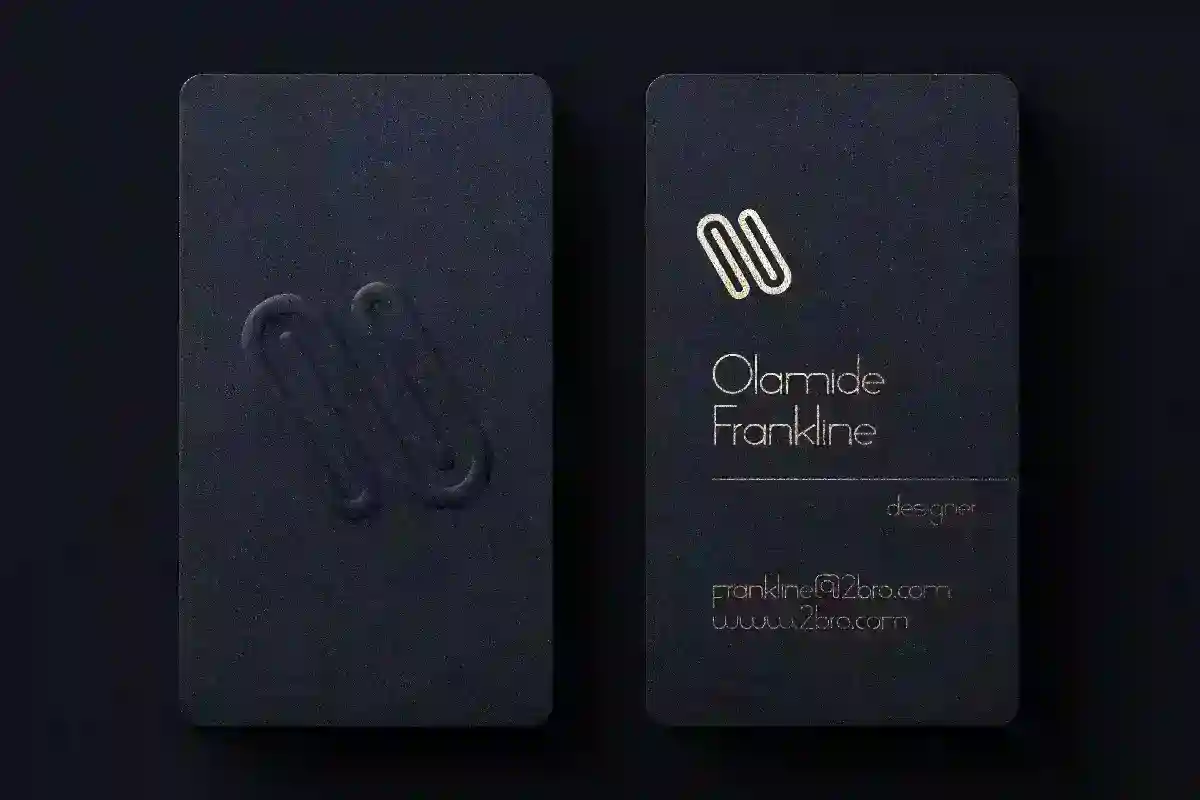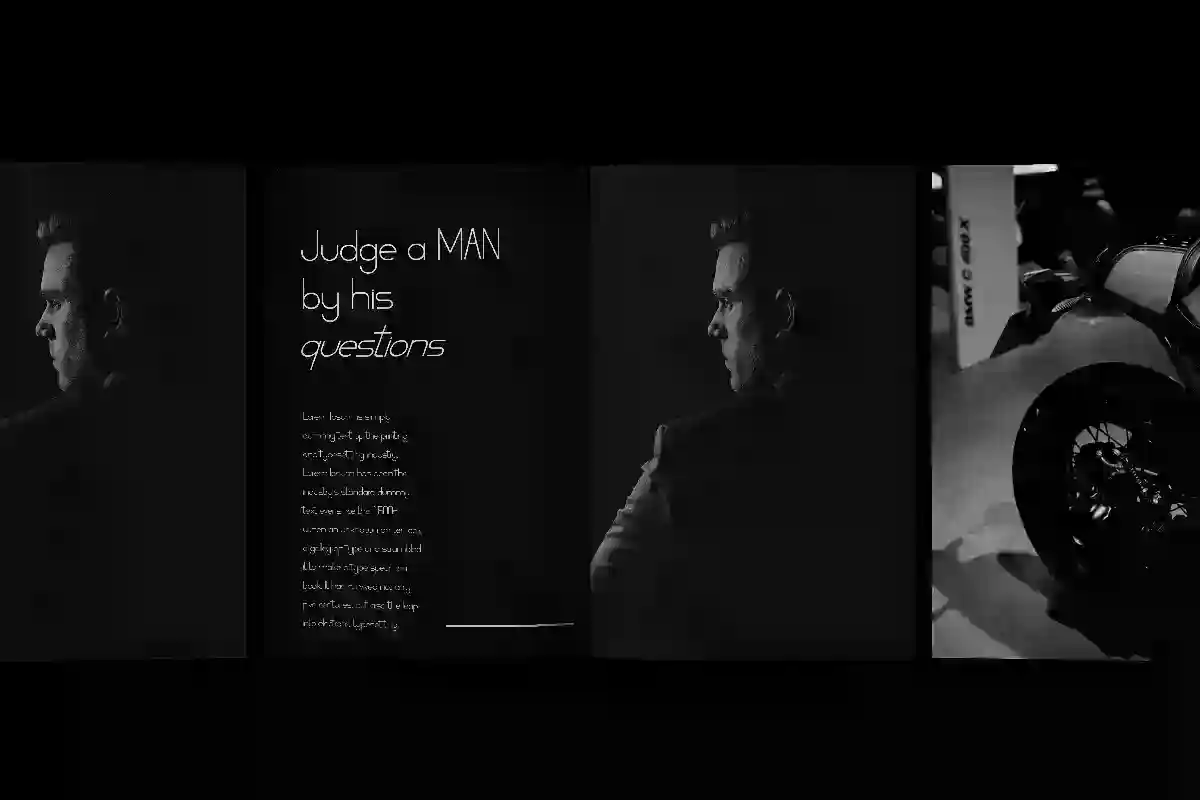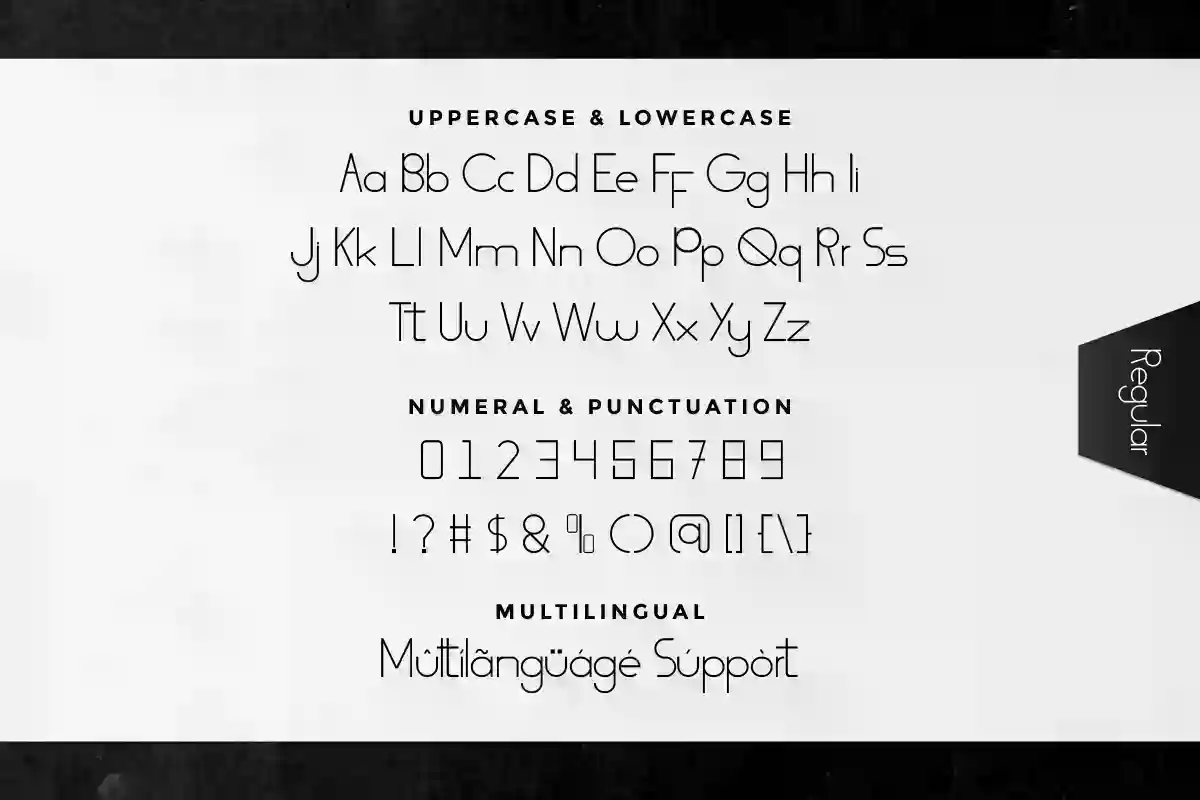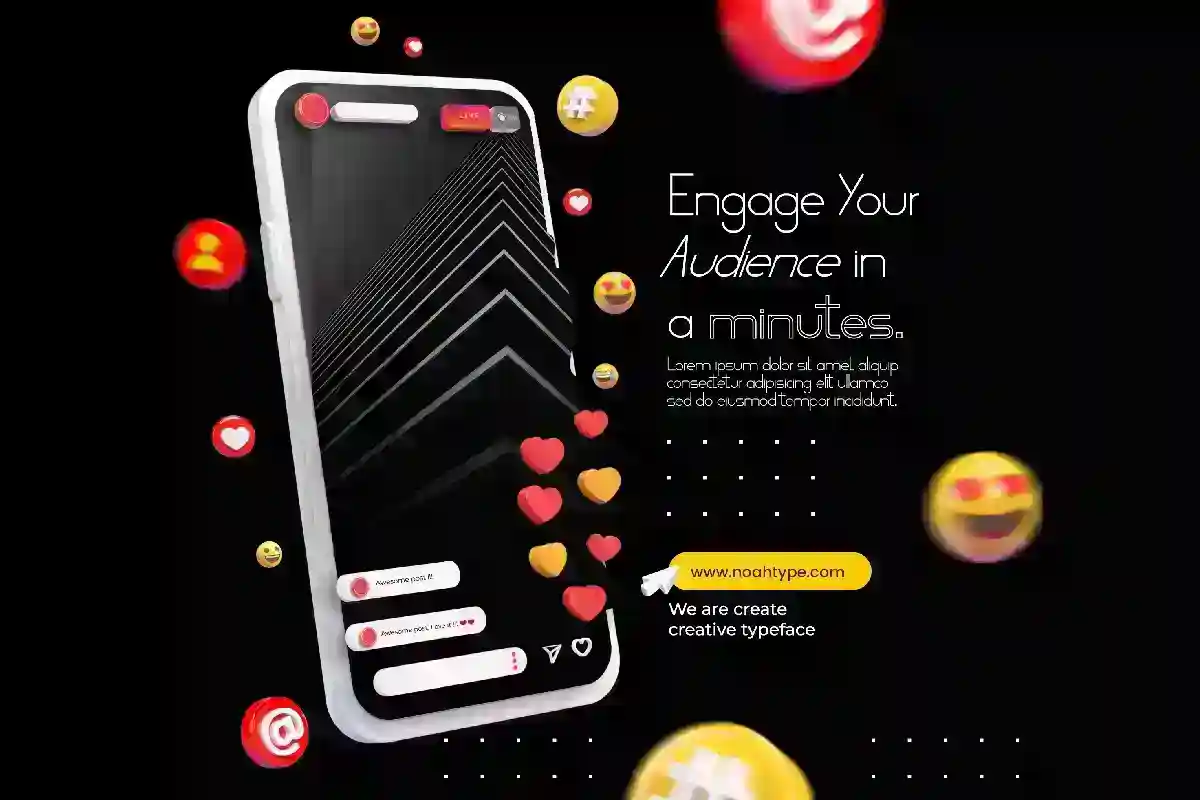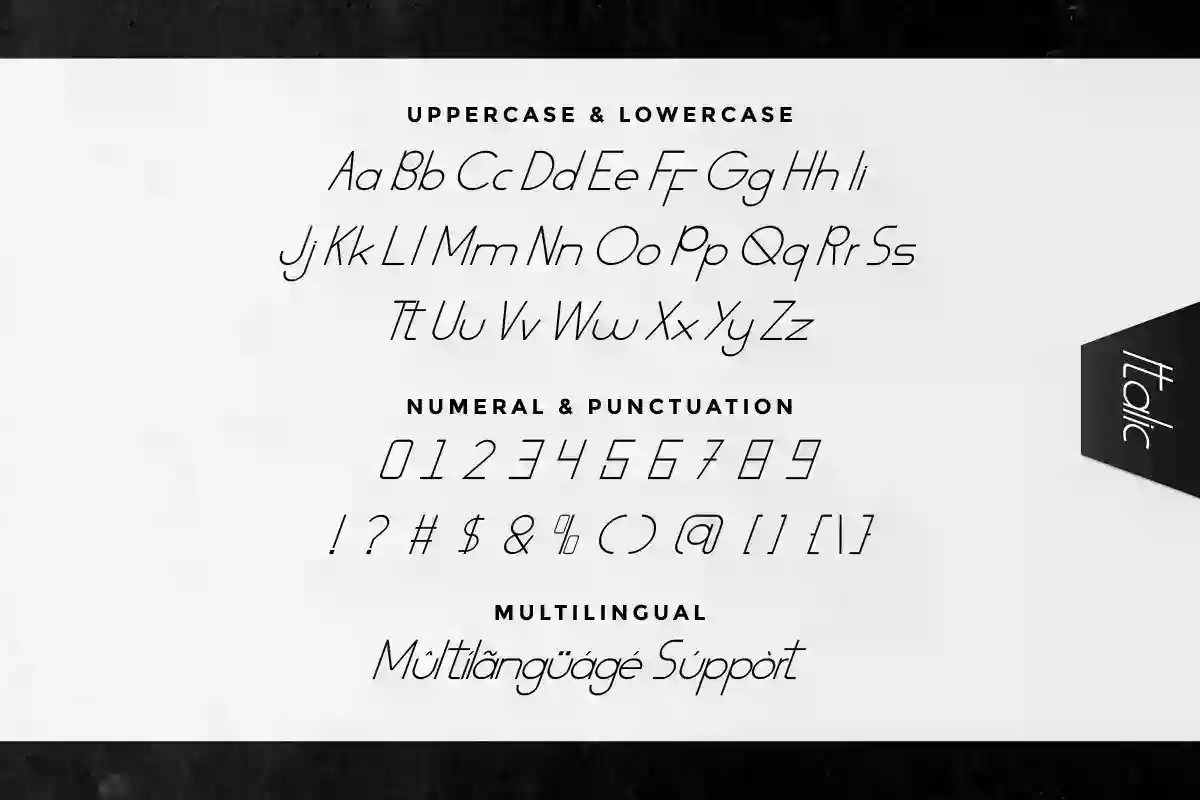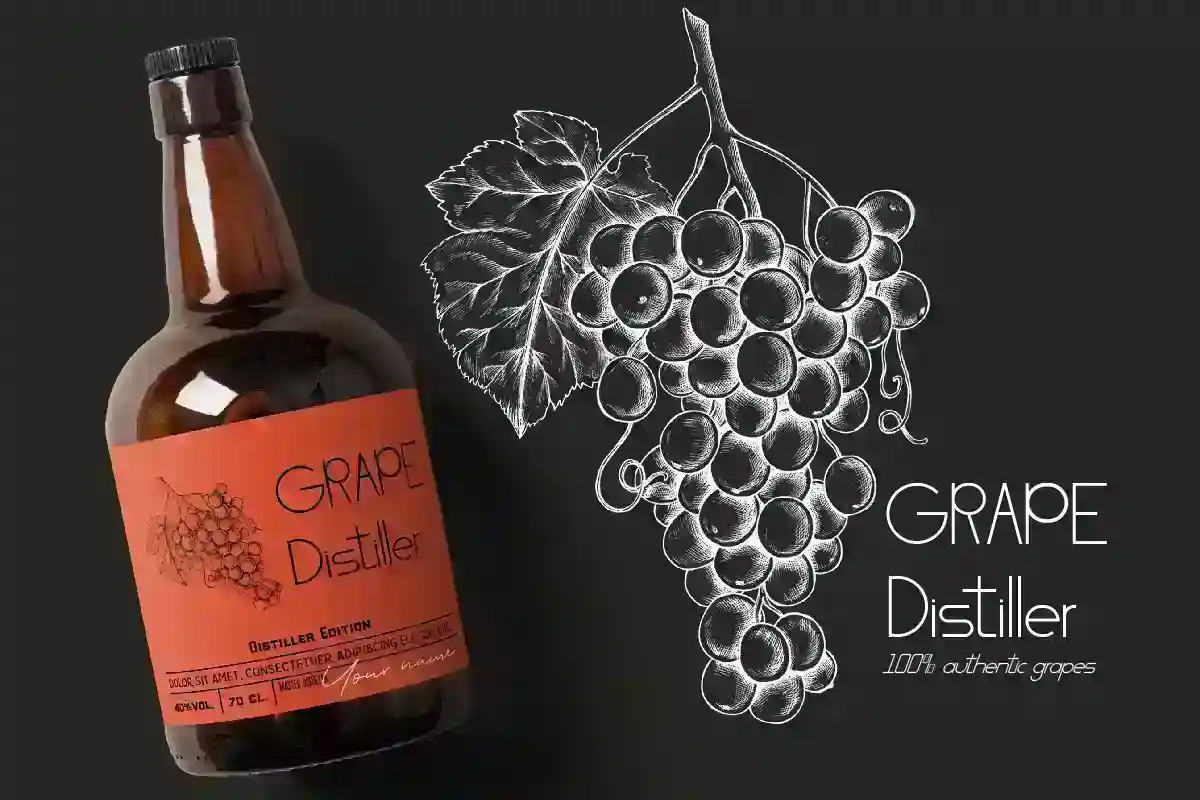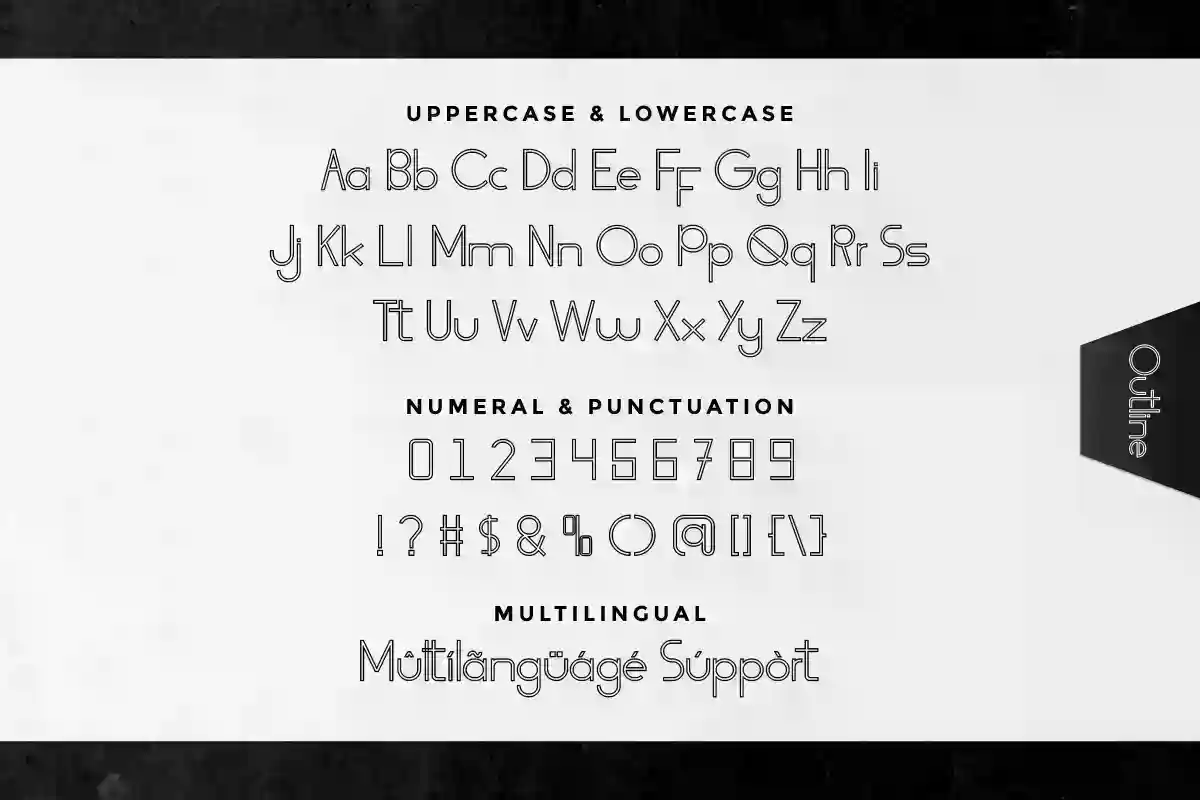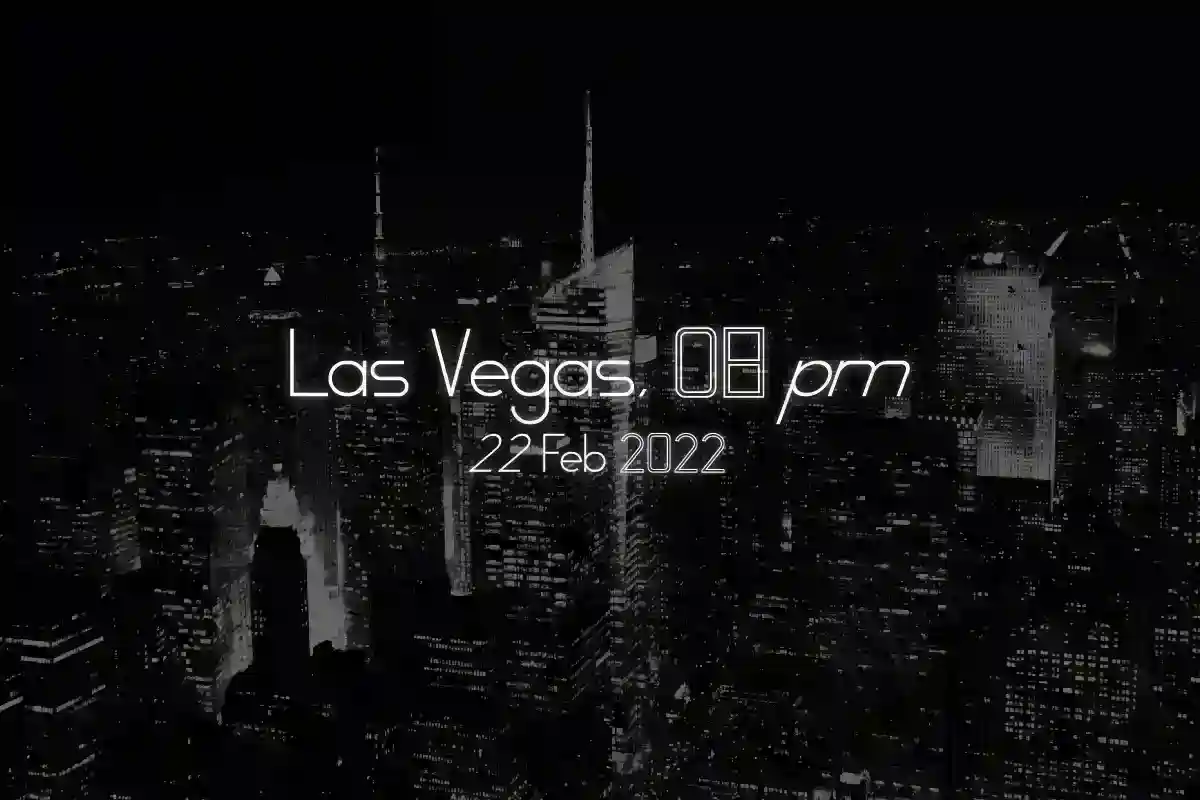
George Sight Font
George Sight is a casual modern sans serif display font family. The font was inspired by many startup and technology company. The font has a unique modern style that will bring the authentic excusive touch to the design. It will also works for company, business, real estate, technology, health products etc
George Sight Font has three styles : Reguler, Italic and Outline. It includes full set of Uppercase and Lowercase Basic Characters, Numerals and Punctuation, also it contains ligatures to make it awesome. You can also combine two or more styles on the text like we did on the cover, so you will great even more unique and special font. The font is perfect for many projects, headlines, logos, poster, tittle, products, etc
George Sight Font supports multilingual languages (including multiple currency symbols). With a simple installation, it will be ready to use both on Windows machine or Mac. In order to use alternative characters, usually we just need to block the end letters and select alternative letters on glyphs option. It really common in almost any software (Character Map for Windows and Font Book for Mac.). It work well on Adobe software such as Illustrator, Photoshop and several other software.